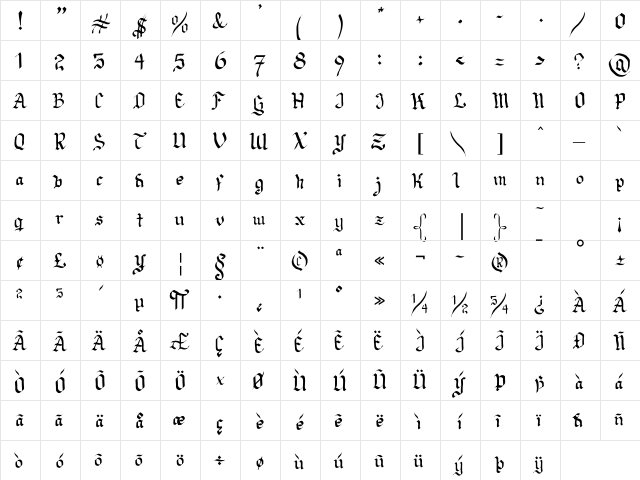
Neue Goth Regular
| Foundry | Juan Casco |
| Designer | 頠Juan Casco, 2011 |
Design Context for Neue Goth Typeface
Neue Goth is a composed and adaptable typeface that performs quietly and consistently across a wide range of design contexts.